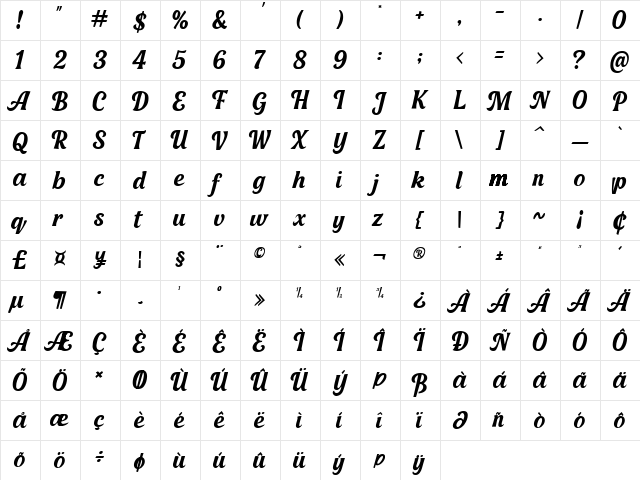
Atelier du Soleil Regular
Design Context for Atelier du Soleil
Atelier du Soleil is a composed and adaptable typeface that performs quietly and consistently across a wide range of design contexts.
Pro Tip: Use Atelier du Soleil in both headline and body roles to test its range before committing to a single application.